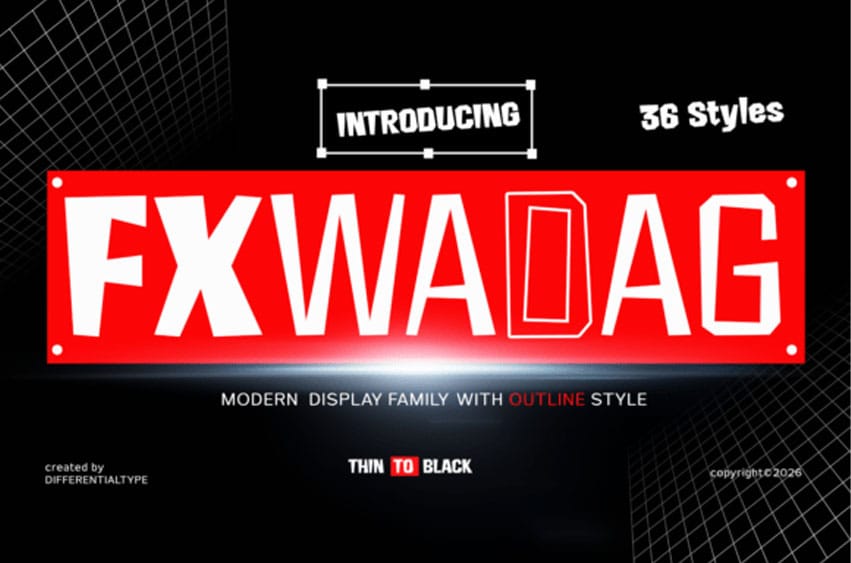
Fx Wadag Font Ignite your creative vision with Fxwadag, a high-octane modern display family engineered for maximum impact. This powerhouse collection features a massive array of 36 styles, ranging from sophisticated Thin to commanding Black weights.
Its geometric architecture is defined by bold, angular cuts and an industrial strength that ensures your message dominates any space. With the inclusion of striking Outline styles, Fxwadag is an extraordinary choice for high-tech branding, futuristic gaming interfaces, sports apparel graphics, and cinematic automotive headers.
Whether you’re designing for the digital grid or physical signage, this family delivers a sense of unyielding professional authority and legendary precision.